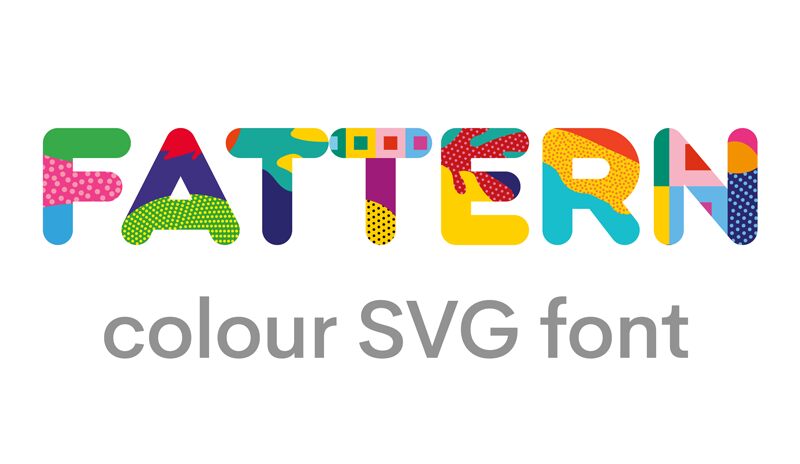
Fattern
Fattern font by Neogrey Creative is a free rounded sans serif font. Its defining move is that ultra-bold, pillowy silhouette—thick, monoline strokes with soft, rubbery corners that feel almost molded. Big open counters and steady rhythm give it a friendly weight that reads clean at a glance, while the chunky curves add a tactile, modern charm.
Using Fattern, headlines hit like stickers: bright, bouncy, and unmistakable. It shines on product packaging, kids’ brands, app icons, event posters, storefront signage, bold web headers, and social thumbnails. For balance, pair this free font with a light, neutral grotesk for body copy, and add a touch of tracking when setting all-caps to let those rounded forms breathe.
Fattern is an SVG color font that supports a limited Latin character set.